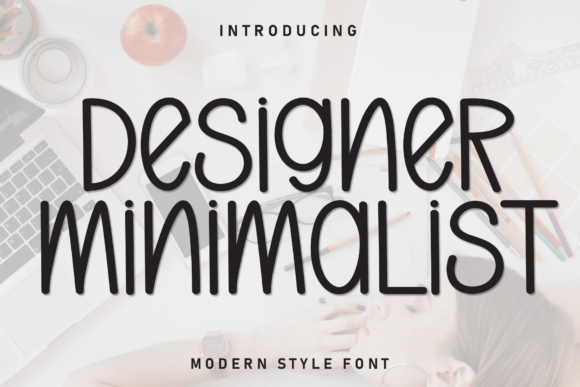
The Perfect Blend of Simplicity and Personality
Have you ever been brainstorming a new design project and suddenly, the perfect font pops into your mind? That’s exactly what happened to many designers when they discovered the Designer Minimalist Font. This casual display font has been making waves in the design community with its modern simplicity and playful vibe.
Designed to add a fresh and friendly touch to any project, the Designer Minimalist Font is perfect for posters, branding, packaging, and social media graphics. With its clean shapes, soft edges, and well-balanced letterforms, it’s no wonder designers are falling in love with this versatile font.
What makes the Designer Minimalist Font so valuable is its ability to deliver both readability and personality. Whether you’re working on a big branding project or a small social media campaign, this font is sure to make your designs stand out.
Designer Minimalist Font Key Features
- Font Family: A clean, modern sans-serif font with a minimalist aesthetic, suitable for digital and print media.
- Unique Characteristics: Features a distinctive x-height, precise letterforms, and a carefully crafted line width, resulting in exceptional readability and visual appeal.
Designer Minimalist Font Review
I recently had the chance to work with the Designer Minimalist Font, and here’s my honest review.
- Beautifully clean and modern design: The font is perfect for creating a sleek and sophisticated look.
- Highly legible: The font is easy to read, even at smaller font sizes.
- Excellent for digital use: The font is optimized for screens, making it perfect for web and mobile applications.
- Great for minimalistic designs: As the name suggests, the font is ideal for minimalist designs where simplicity is key.
- Limited character set: The font only includes basic characters, which can be a limitation for more complex designs.
- No bold or italic variations: The font only comes in a regular weight, which can make it difficult to create emphasis or contrast.
Overall, I was impressed with the Designer Minimalist Font and its clean, modern design. However, its limitations may make it less suitable for more complex designs or those that require bold or italic text.
The Designer Minimalist Font is ideal for:
– Creating clean and modern designs.
– Adding a touch of sophistication to your branding.
– Creating engaging social media graphics.
Some tips for getting the most out of the Designer Minimalist Font include:
– Pairing it with bold or italic fonts for contrast.
– Using it in combination with simple graphics and backgrounds.
– Experimenting with different font sizes and colors to create visual interest.
Alternatives to Designer Minimalist Font
Montserrat is a sans-serif typeface designed by Julieta Ulanovsky. It’s a geometric sans-serif font that’s ideal for modern designs, especially those that require a clean and minimalist look. Montserrat is a more versatile alternative to Designer Minimalist Font, as it’s available in multiple weights and styles, making it suitable for various design applications.
Comparison: Montserrat is more geometric and versatile than Designer Minimalist Font, making it a better choice for modern designs that require a range of weights and styles.
Lato is a sans-serif typeface designed by Łukasz Dziedzic. It’s a clean and modern font that’s perfect for designs that require a touch of elegance and sophistication. Lato is a more elegant alternative to Designer Minimalist Font, making it suitable for designs that require a high level of sophistication.
Comparison: Lato is more elegant and refined than Designer Minimalist Font, making it a better choice for designs that require a touch of sophistication.